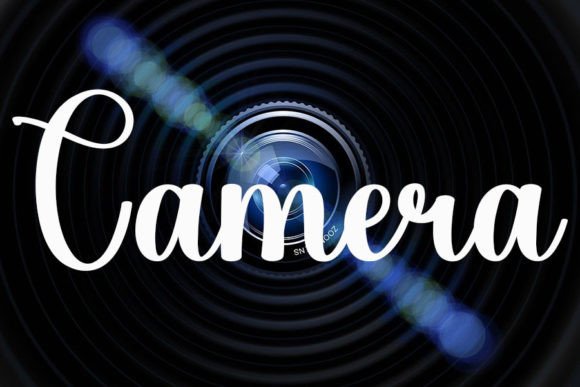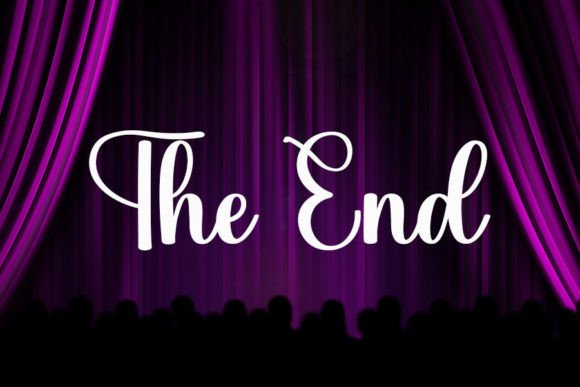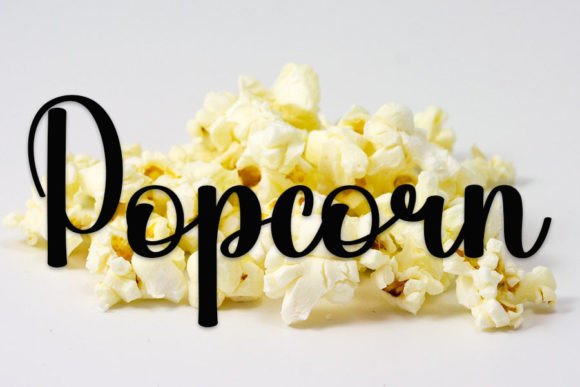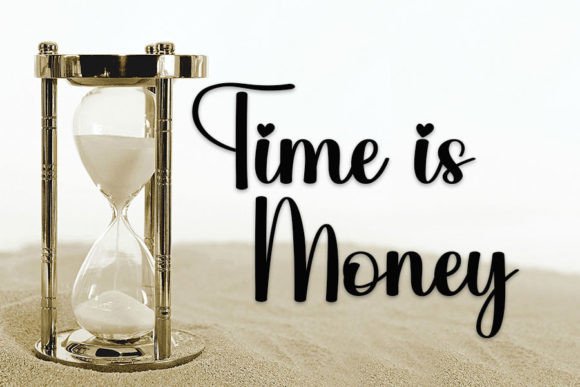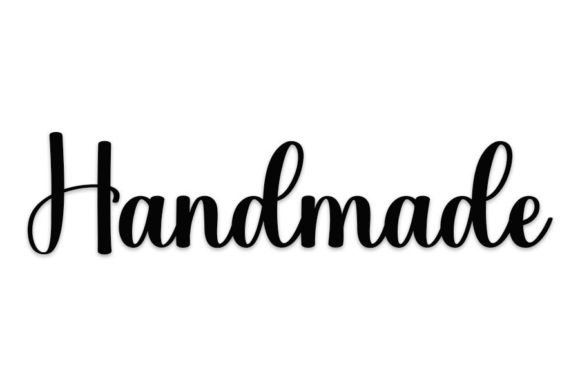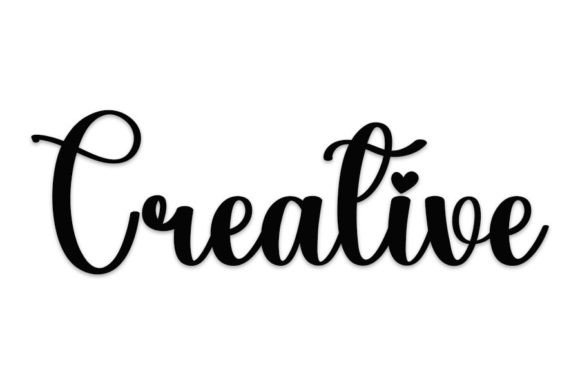
Cinema Font: Elevate Your Designs with Elegance and Timeless Style
Are you on the hunt for a font that exudes sophistication, elegance, and a touch of classic charm? Look no further than the Cinema Font, a beautiful handwritten typeface that is sure to capture your heart. With its incredibly distinct and timeless style, this font is perfect for designers and crafters seeking to add a dash of luxury to their projects.
The Essence of Cinema Font
Cinema Font is a neat and beautiful handwritten font, characterized by an elegant touch that sets it apart from other typefaces. Its unique blend of classic and modern elements makes it an ideal choice for a wide range of design applications, from branding and advertising to packaging and digital media.
What Makes Cinema Font Stand Out?
So, what makes Cinema Font so special? Here are just a few features that make it a standout typeface:
- Elegant and Refined: Cinema Font boasts an undeniable air of sophistication, making it perfect for high-end designs and luxury brands.
- Timeless Style: Unlike trendy fonts that quickly go out of style, Cinema Font’s classic charm ensures it remains relevant for years to come.
- Distinctive: With its unique letterforms and flowing lines, Cinema Font is sure to grab attention and leave a lasting impression.
- Versatile: Whether you’re designing a logo, brochure, or social media graphic, Cinema Font adapts seamlessly to any format.
Cinema Font’s versatility makes it an excellent choice for a wide range of design projects, including:
- Branding and Identity: Create a lasting impression with a custom logo, business card, or letterhead that showcases your brand’s personality.
- Advertising and Marketing: Use Cinema Font to craft compelling ad copy, brochures, and flyers that capture your audience’s attention.
- Packaging: Add a touch of luxury to your product packaging with Cinema Font, perfect for high-end food, fashion, or beauty brands.
- Digital Media: Elevate your social media graphics, website headers, and email newsletters with this beautiful font.
Tips for Using Cinema Font Effectively
To get the most out of Cinema Font, here are some expert tips:
- Pair with Neutrals: Balance Cinema Font’s elegance with neutral colors like black, white, or gray to create a sophisticated look.
- Experiment with Sizes: Use varying font sizes to create visual interest and hierarchy in your designs.
- Add Texture: Combine Cinema Font with subtle textures or patterns to add depth and dimension.
In conclusion, Cinema Font is a stunning handwritten typeface that offers a unique blend of elegance, sophistication, and timeless style. Whether you’re a designer, crafter, or DIY enthusiast, this beautiful font is sure to inspire your next project. So why wait? Fall in love with Cinema Font and unlock a world of creative possibilities!